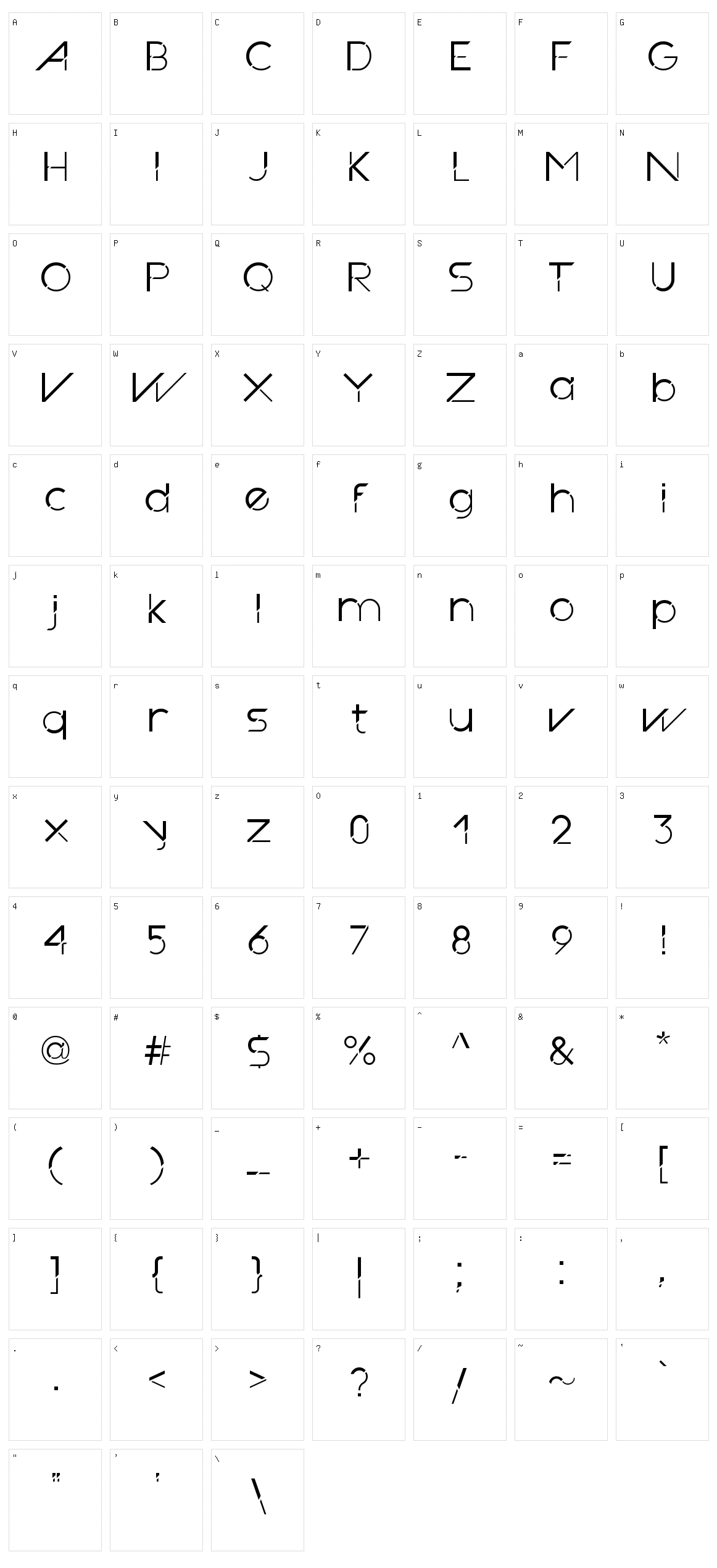
Interlude designed by Alejandro Sanclemente
It's inspired in three concepts: short, incomplete and thin.
To me it's a bit "techy" and futuristic font, composed of purely geometric shapes with a diagonal cut and one half thinner than the other.
* Upper case characters
ABCDEFGHIJKLMNOPQRSTUVWXYZ
* Lower case characters
abcdefghijklmnopqrstuvwxyz